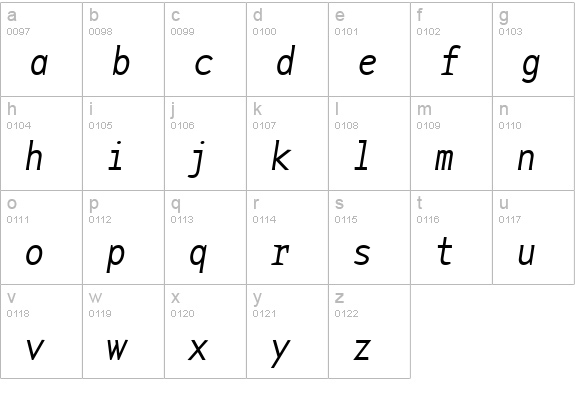
BaseMonoNarrowThinItalic Italic Font Details
BaseMonoNarrowThinItalic Italic is a distinctive, italic variant in the BaseMonoNarrowThinItalic typeface family \xE2\x80\x94 well suited to design and typography projects.
BaseMonoNarrowThinItalic Italic font is a sleek and elegant typeface designed for modern design projects. Its narrow width and thin strokes create a sophisticated and refined look, perfect for adding a touch of sophistication to any project. The italic style adds a sense of movement and dynamism to the text, making it stand out on the page. What's even better is that BaseMonoNarrowThinItalic Italic font is available for free download at FontsMarket.com. This means you can easily access this stylish font and use it in your designs without any cost. Whether you're working on a branding project, a website design, or a print publication, this font is sure to elevate your work and make it look professional and polished. Don't miss out on the opportunity to enhance your designs with this stunning typeface - download BaseMonoNarrowThinItalic Italic font for free today!